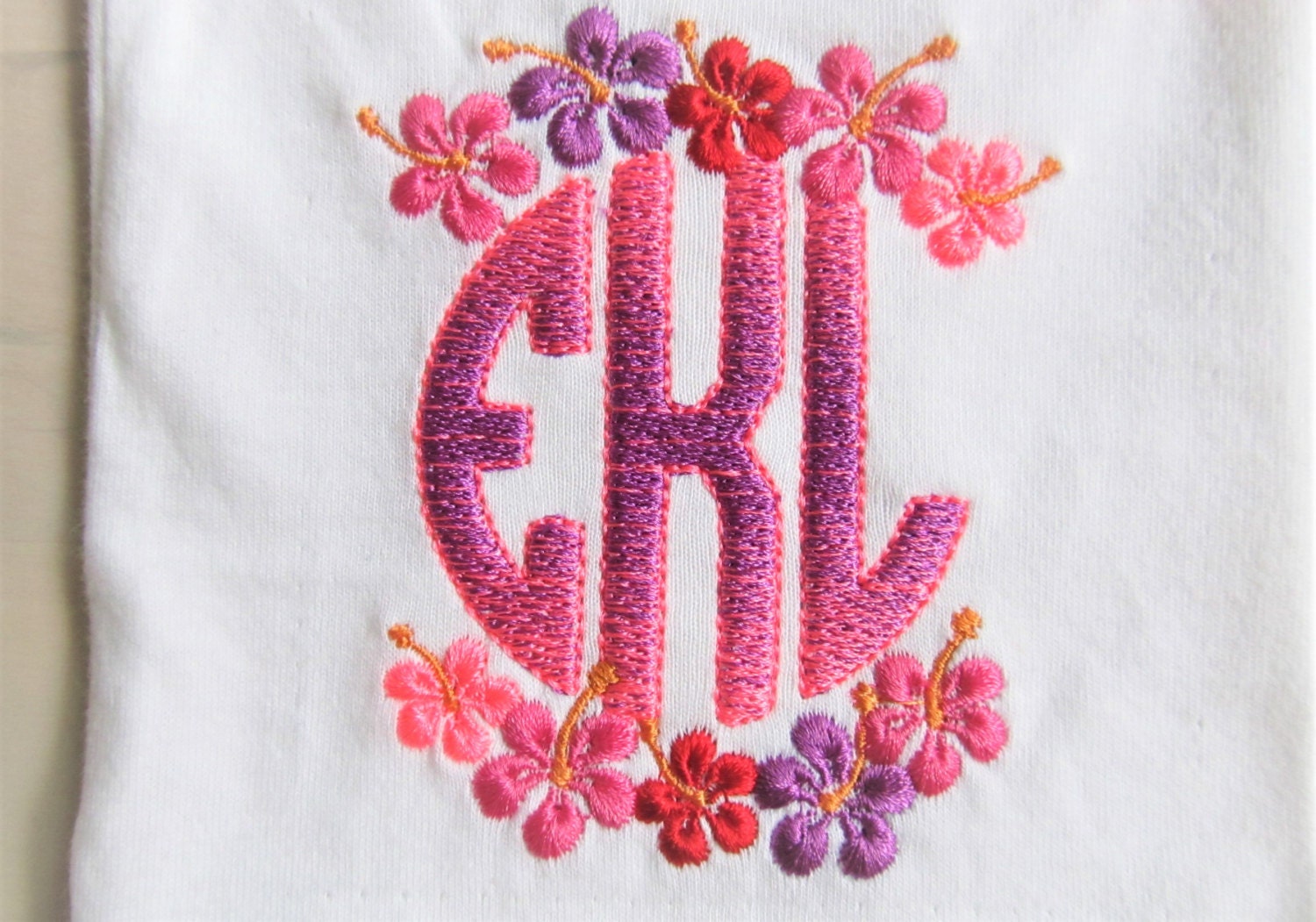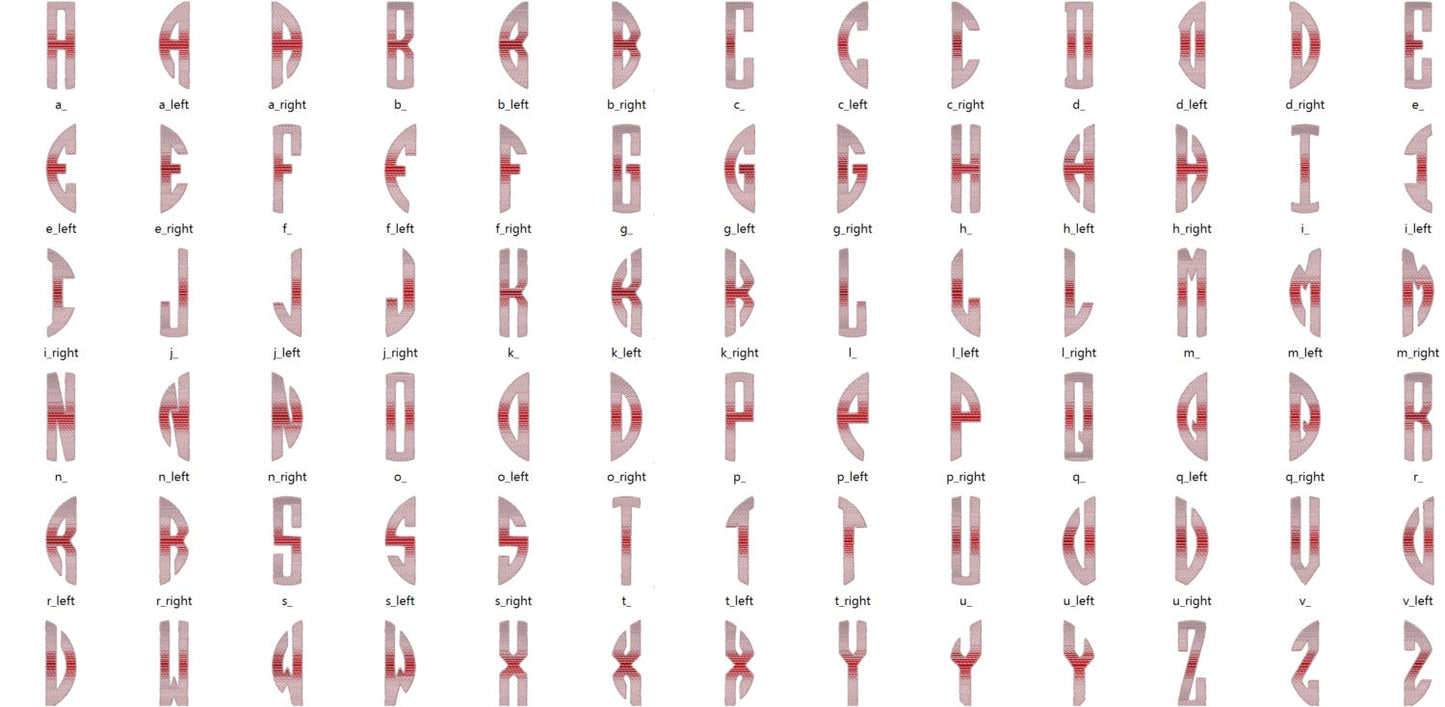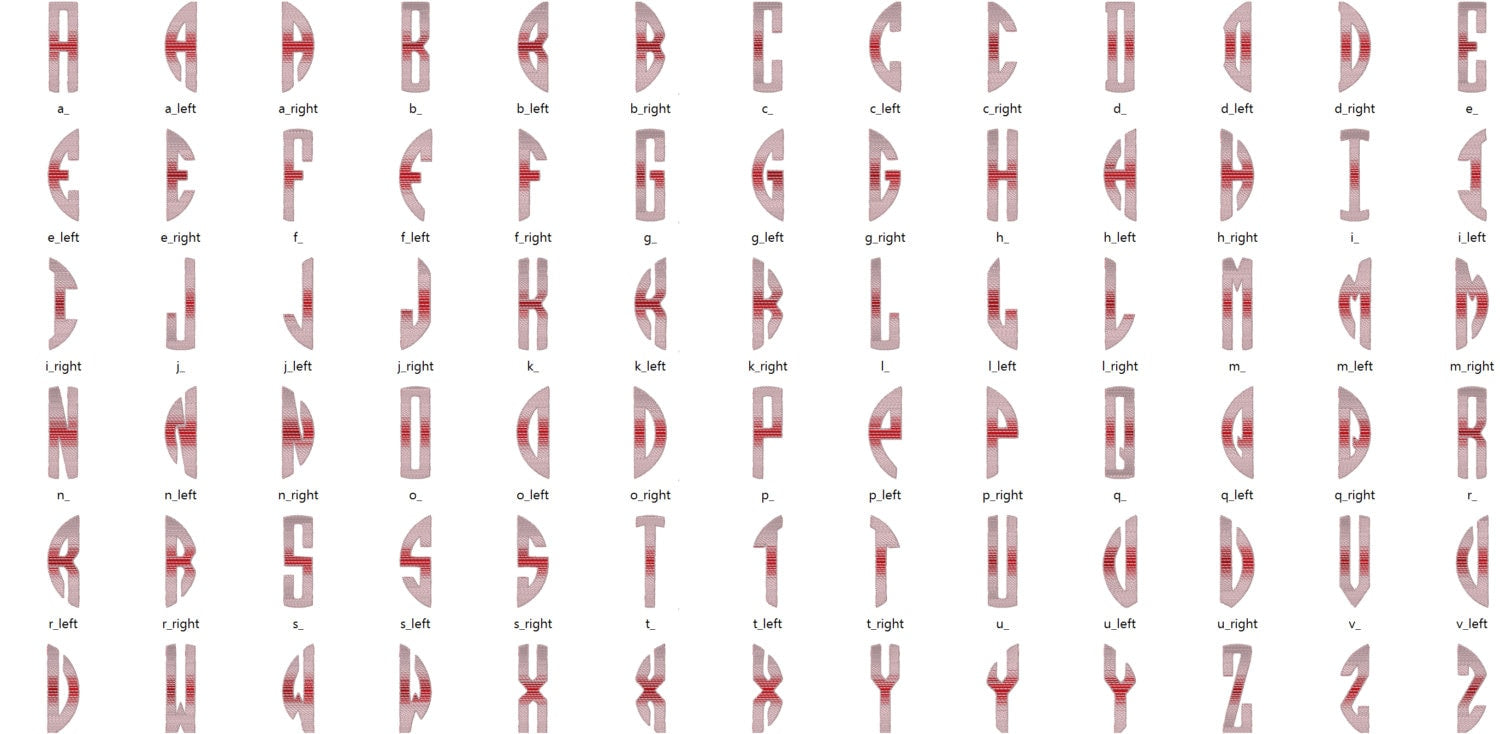
Or click to open the linkAn iridescent three-letter circle monogram stitched with two ordinary thread colors, plus a mini hibiscus flower frame, no special thread needed. Lovely for towels, beach bags and summer gifts.
All 26 letters come as left, center and right pieces, 78 in total, in four sizes: 2.4, 3, 3.7 and 4.3 inches. The hibiscus flower frame comes in 3.5, 4, 4.5, 5.5 and 6 inches.